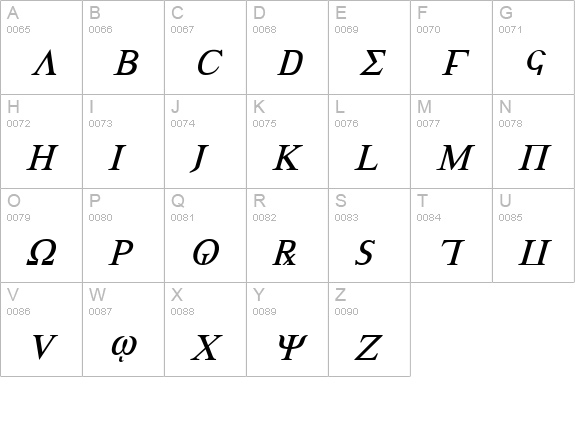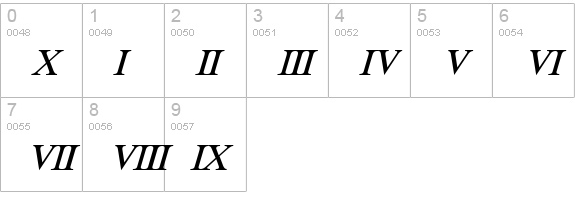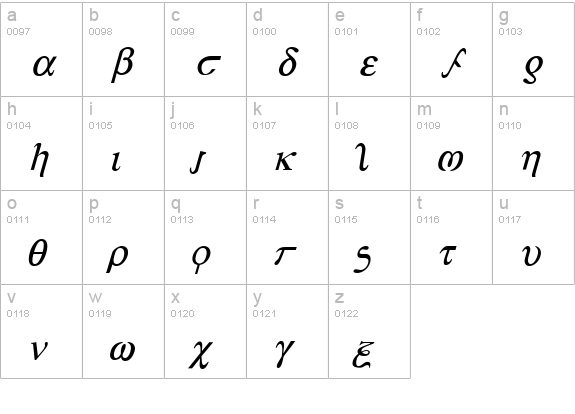
Achilles Italic is a distinctive, italic variant in the Achilles typeface family \xE2\x80\x94 well suited to design and typography projects.
Achilles Italic font is a stunning and elegant typeface that exudes sophistication and style. With its sleek and modern design, this font is perfect for a wide range of design projects, from branding to editorial design. The delicate curves and flowing lines of Achilles Italic add a touch of class to any text or headline. The best part? Achilles Italic font is available for free download at FontsMarket.com. Whether you're a designer looking to elevate your projects or a typography enthusiast searching for a new favorite font, Achilles Italic is sure to impress. Download it today and add a touch of luxury to your designs with this exquisite typeface.